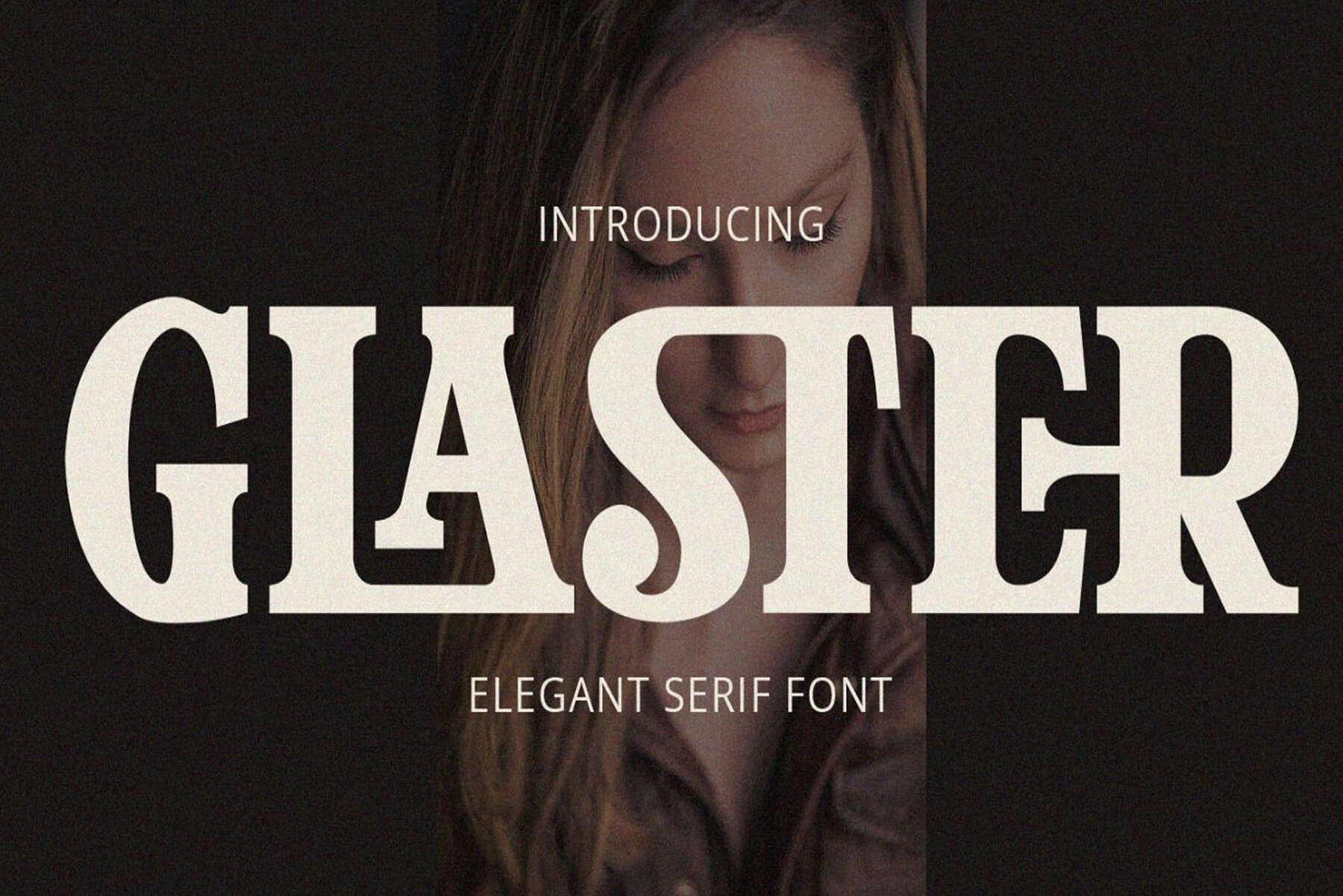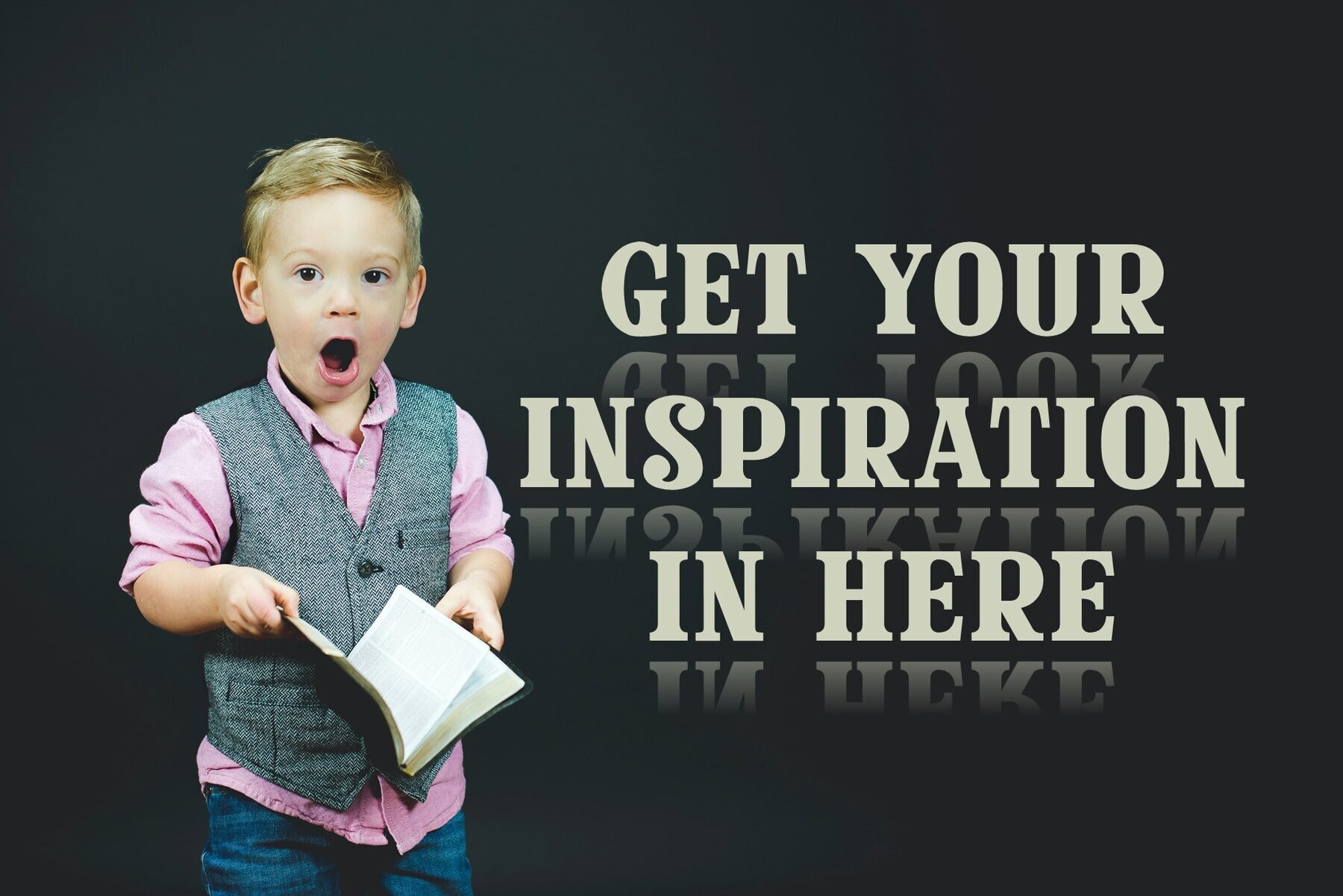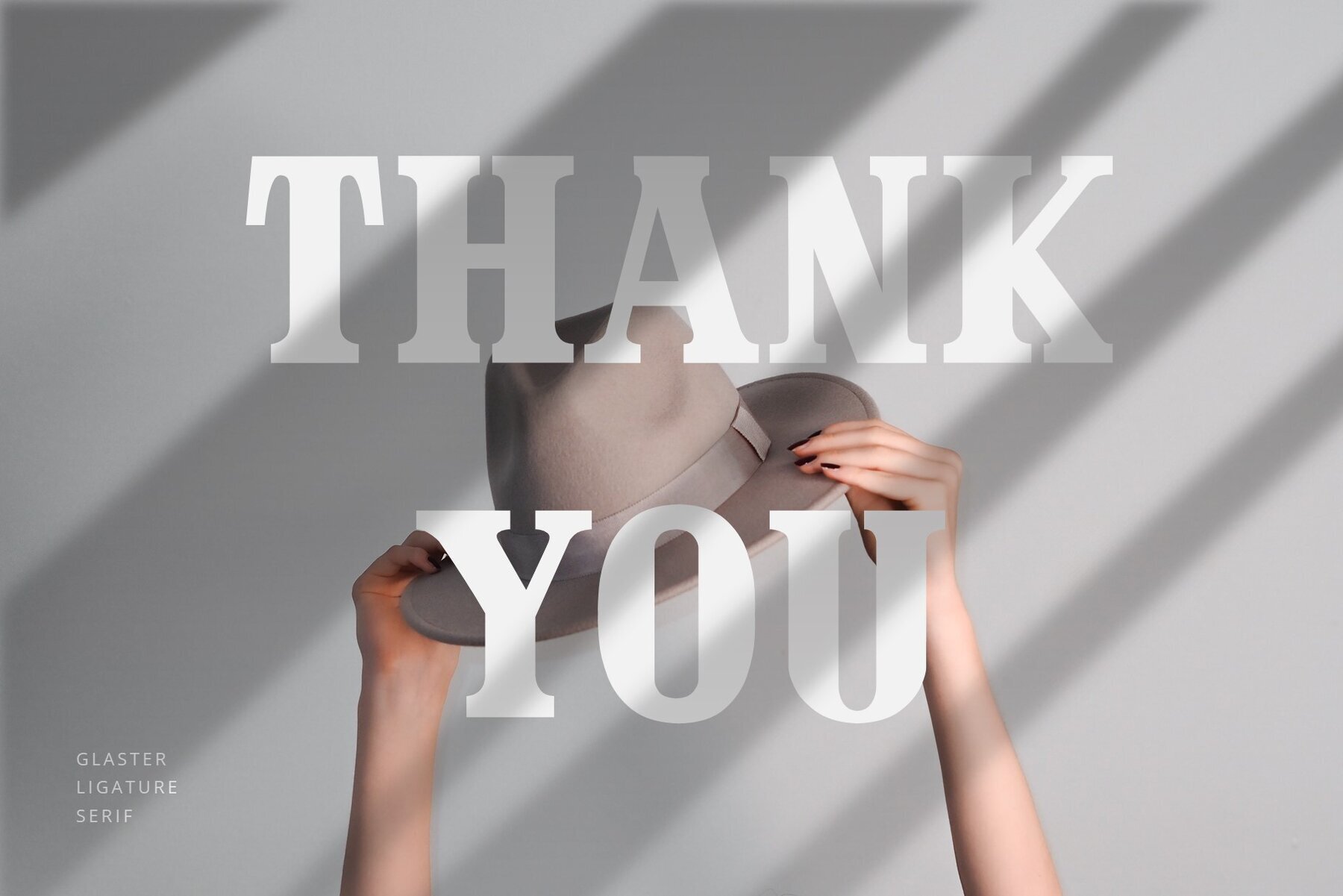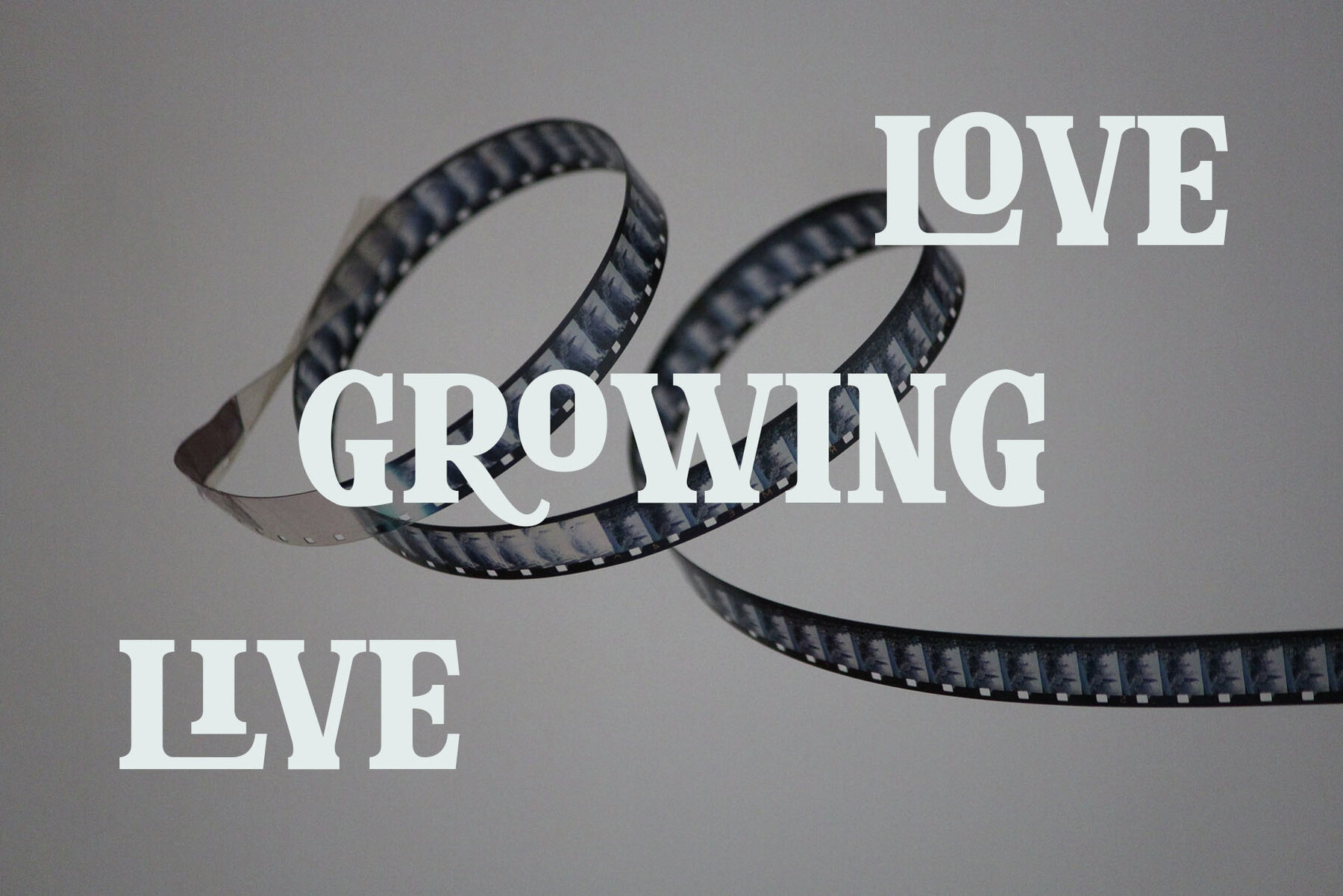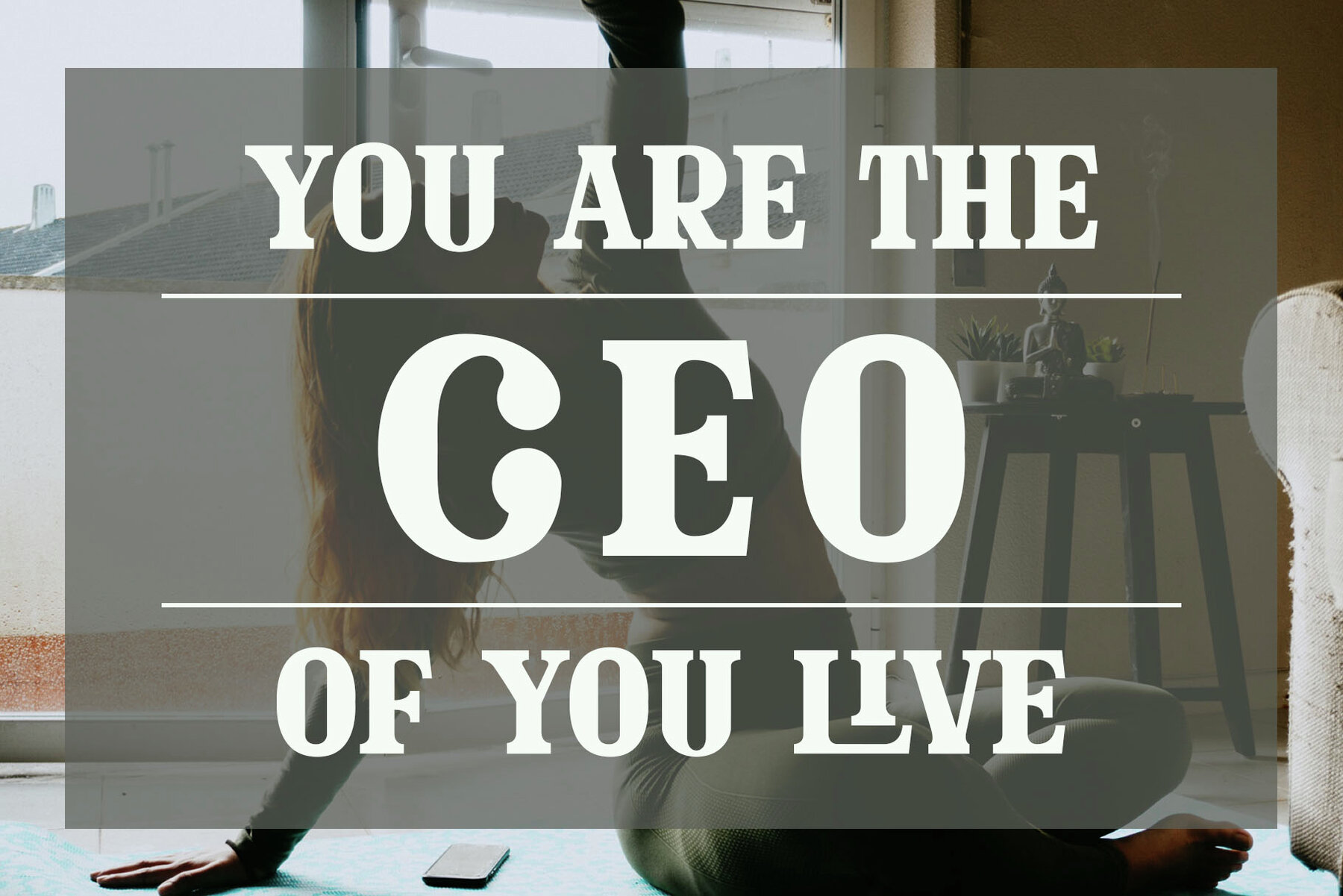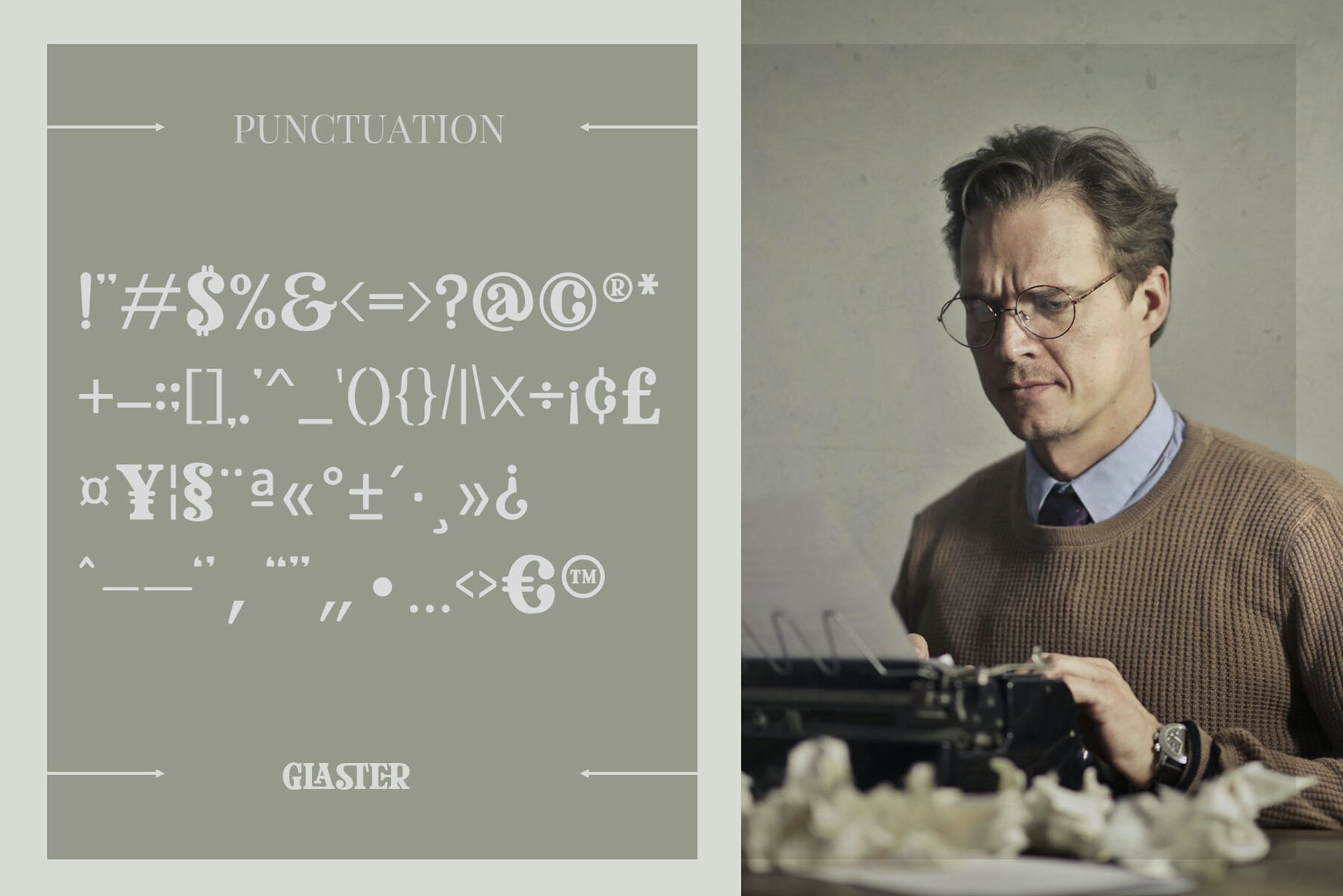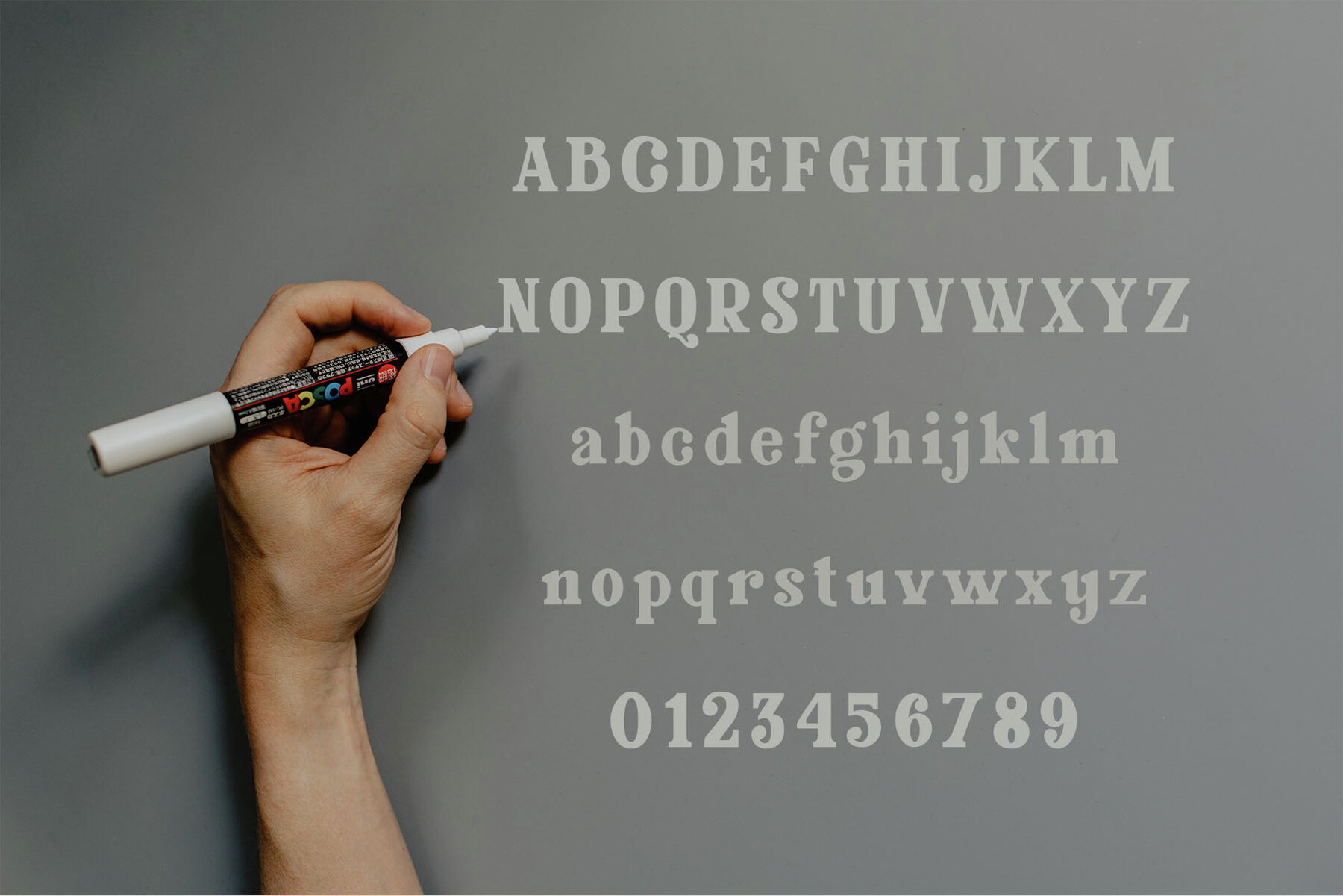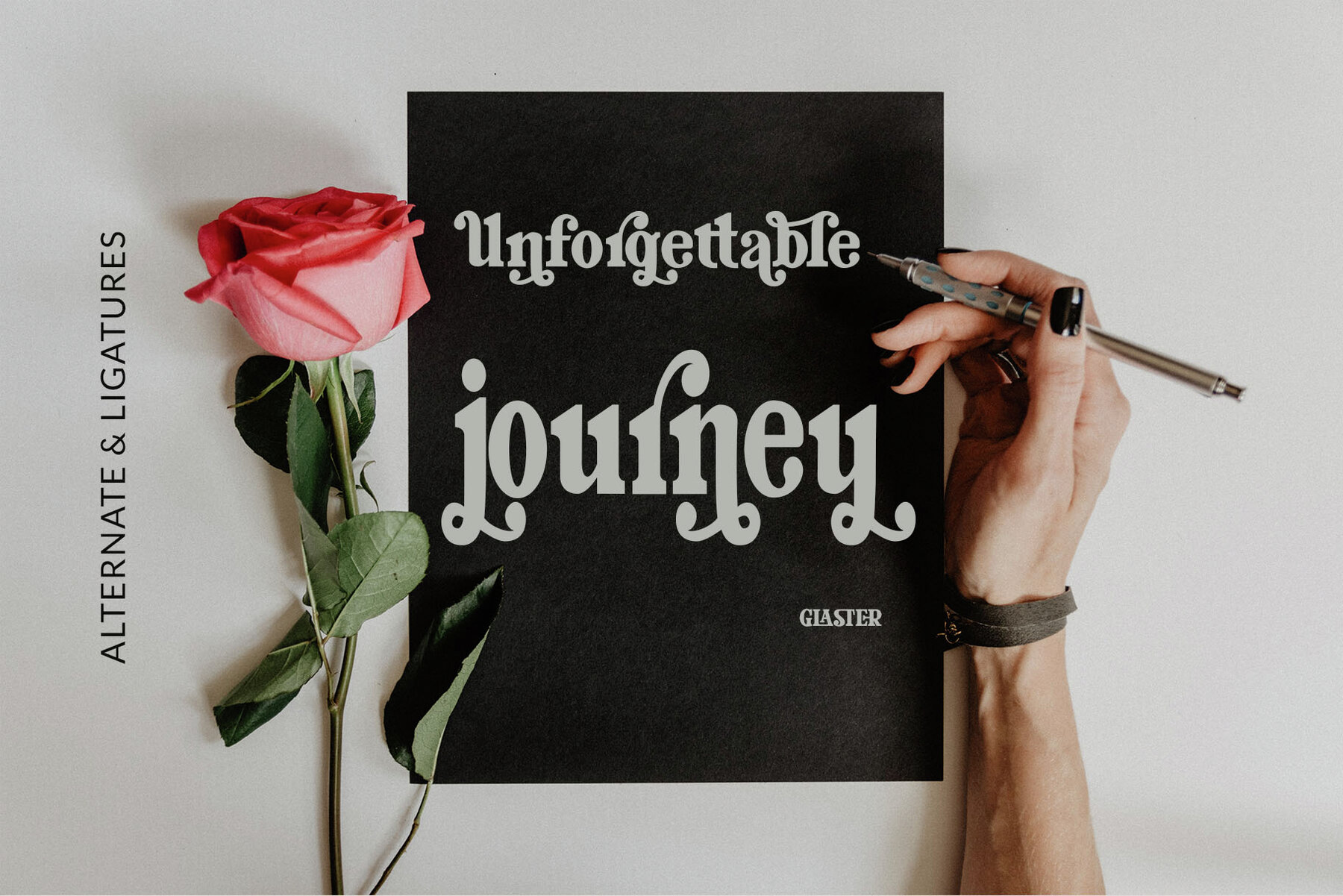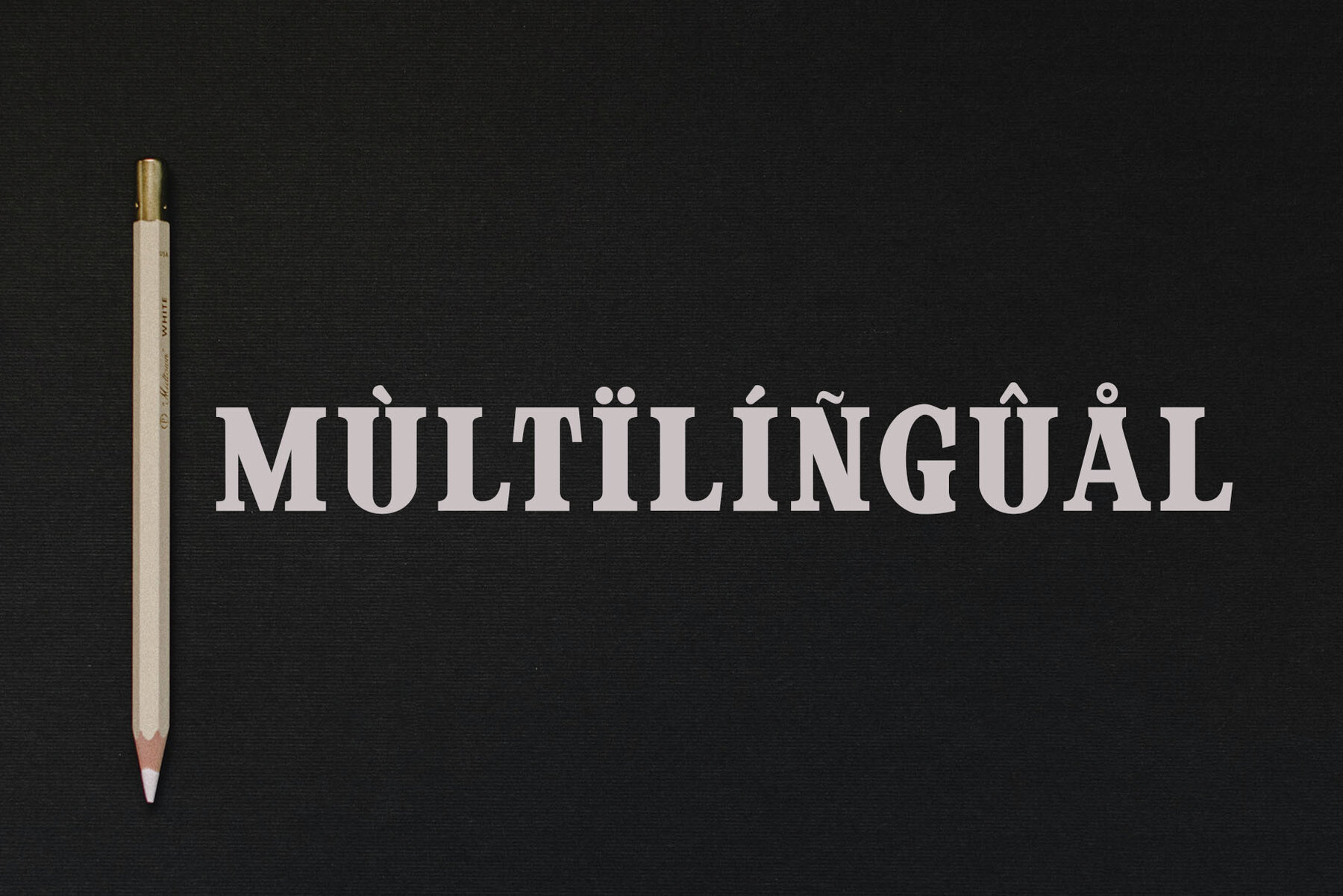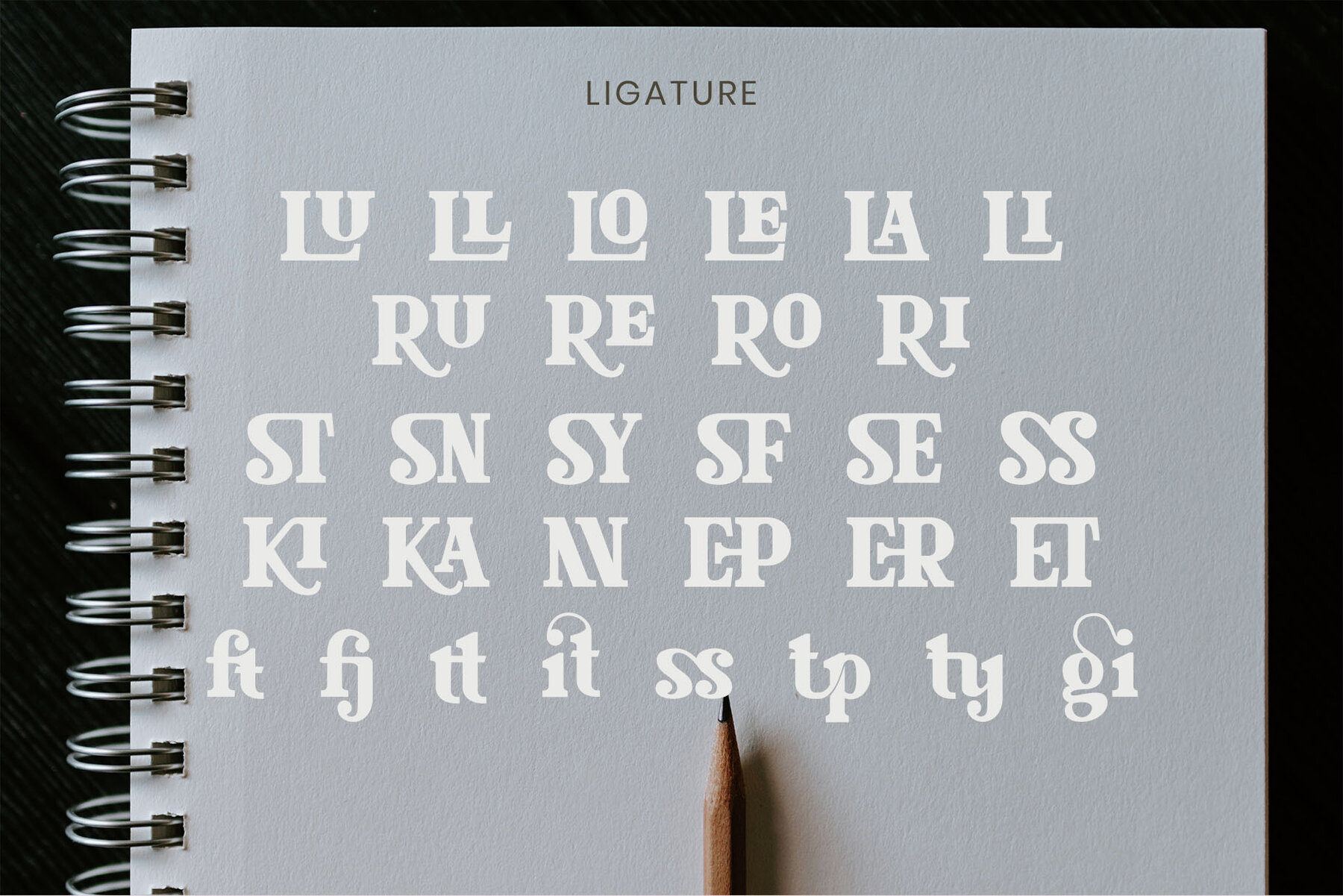
Glaster Font
Glaster Regular
Glaster is a robust serif font known for its strong, thick letterforms. Each uniquely shaped letter contributes to its distinct and memorable appearance, making it an excellent choice for a variety of creative projects. Use Glaster when your design needs to convey power and leave a lasting impression.Glaster: Bold Serif Font for Impactful Designs
Notable Features